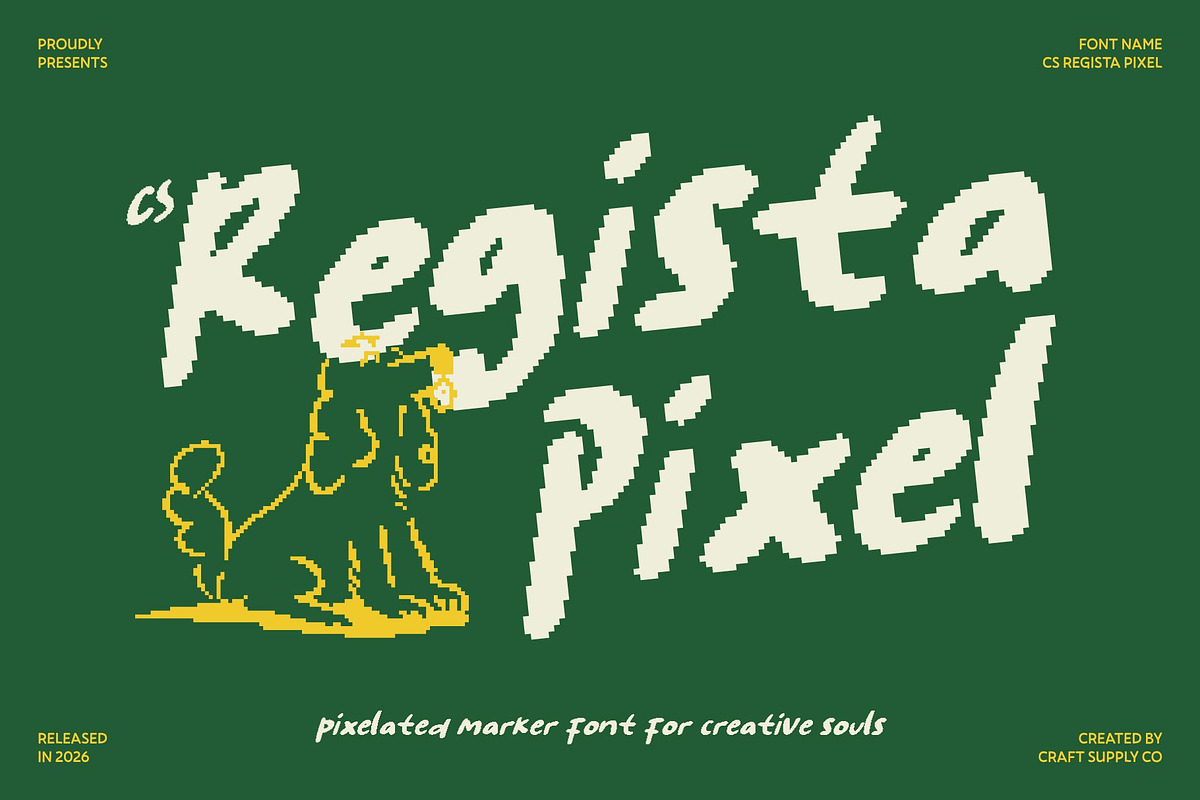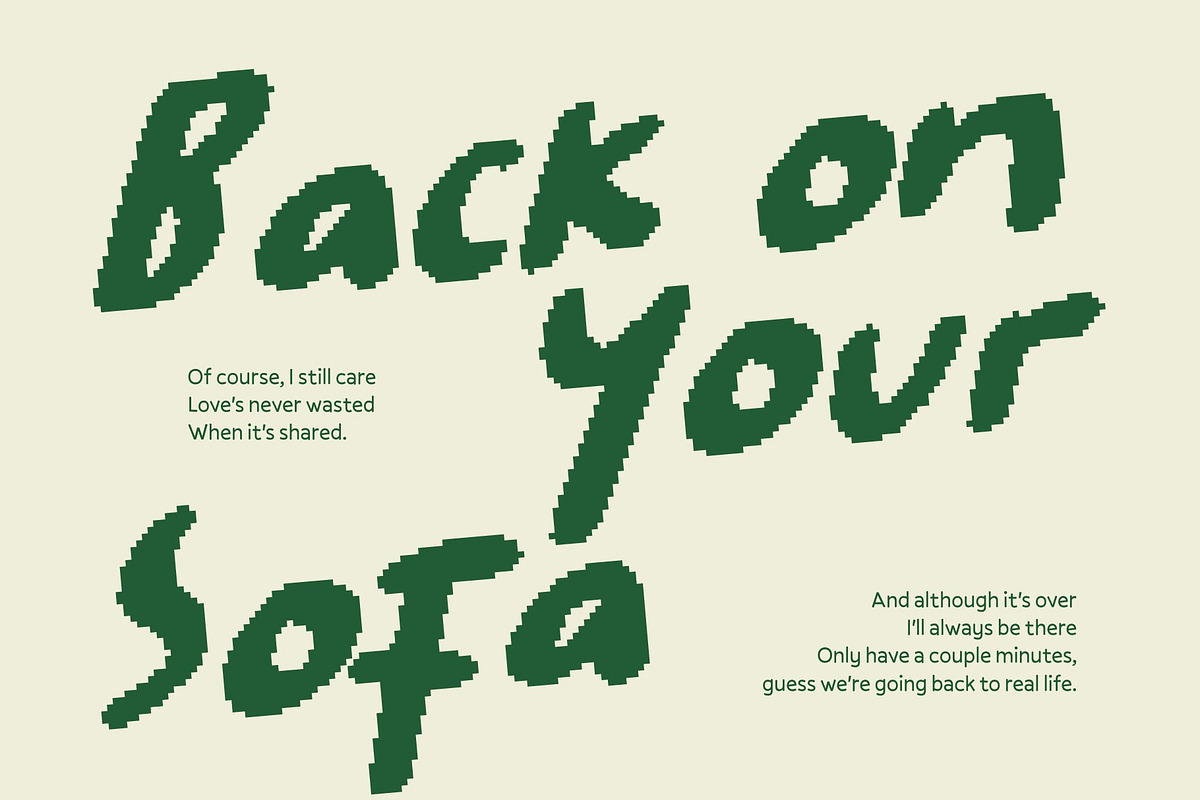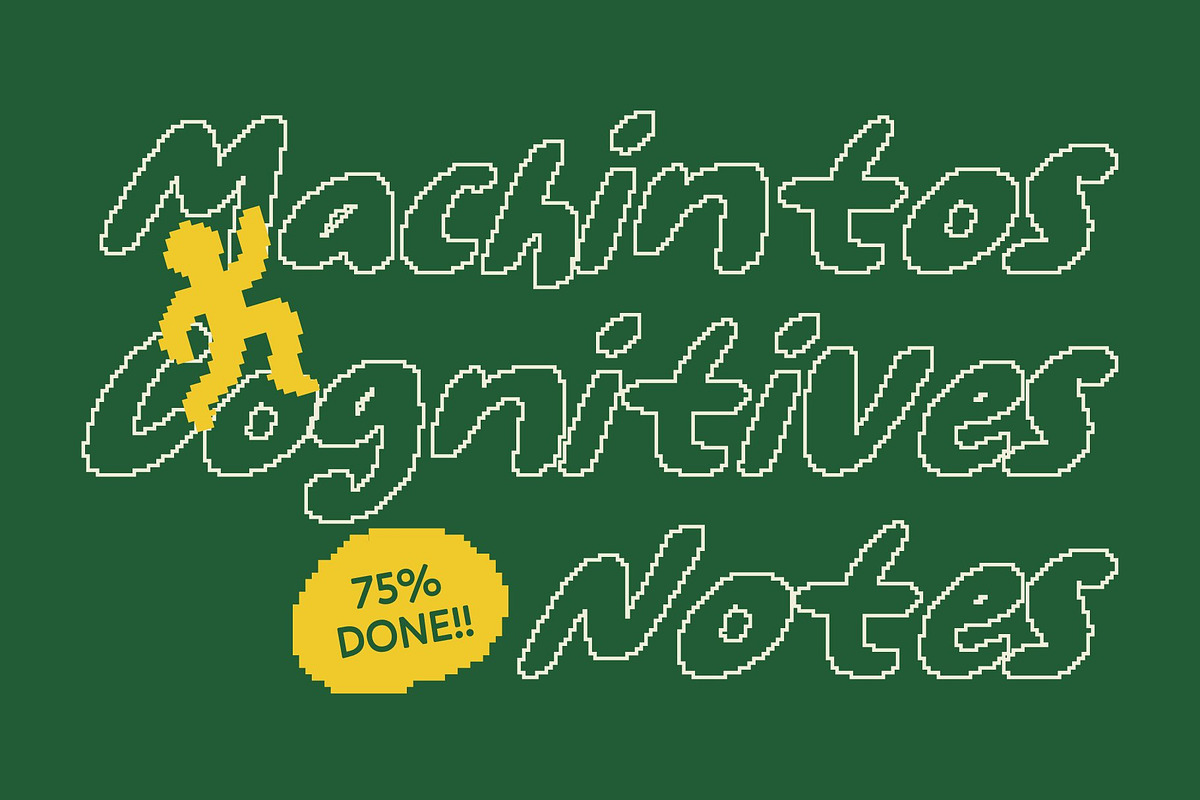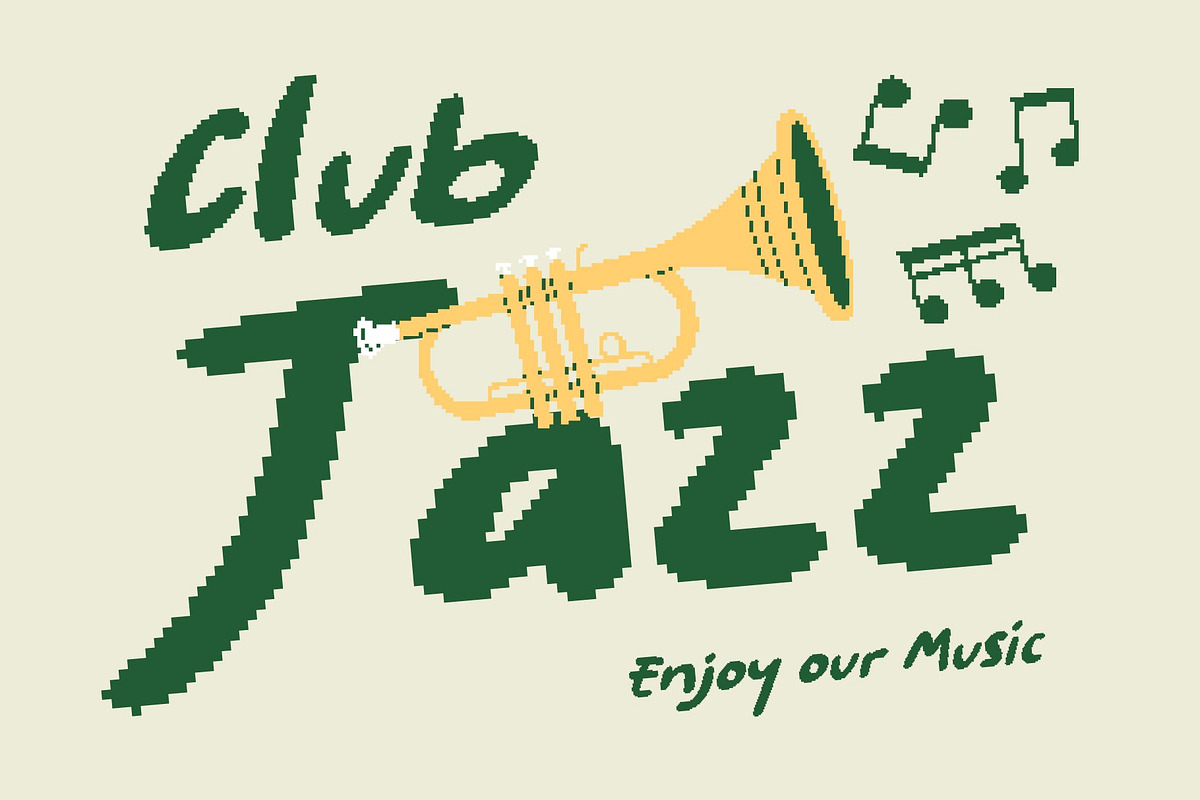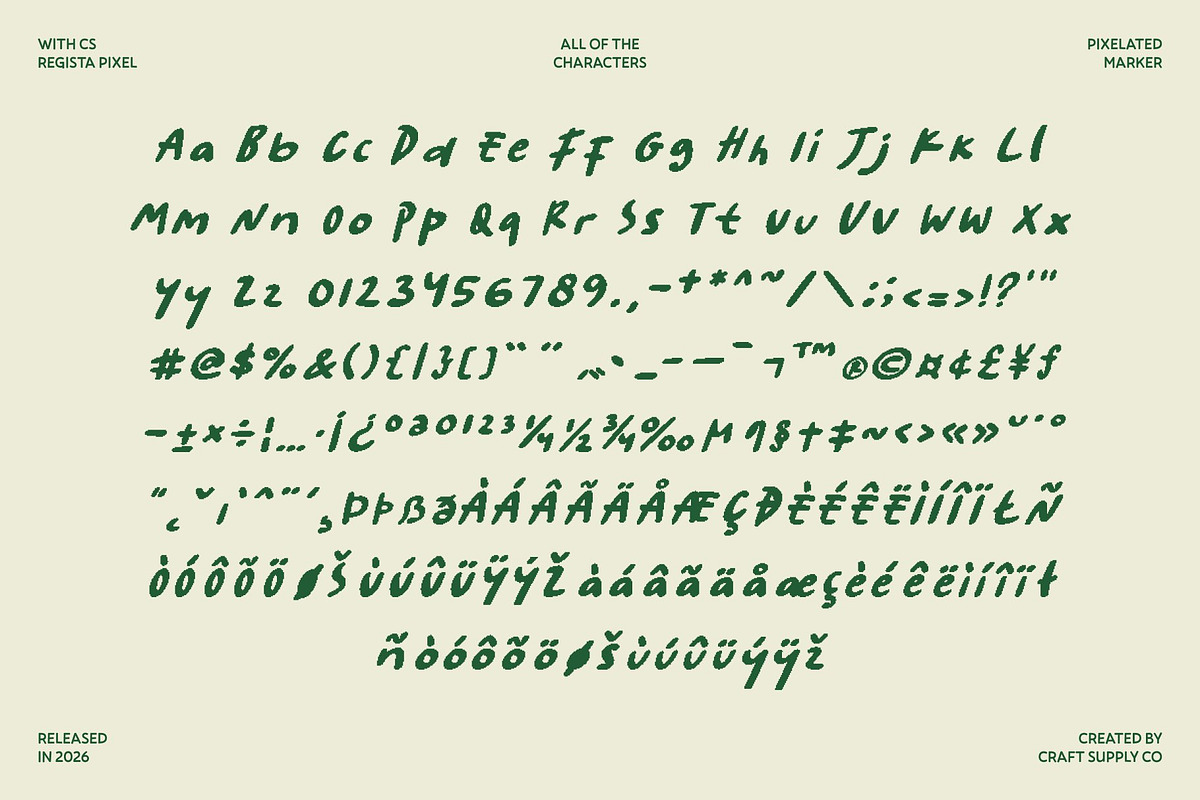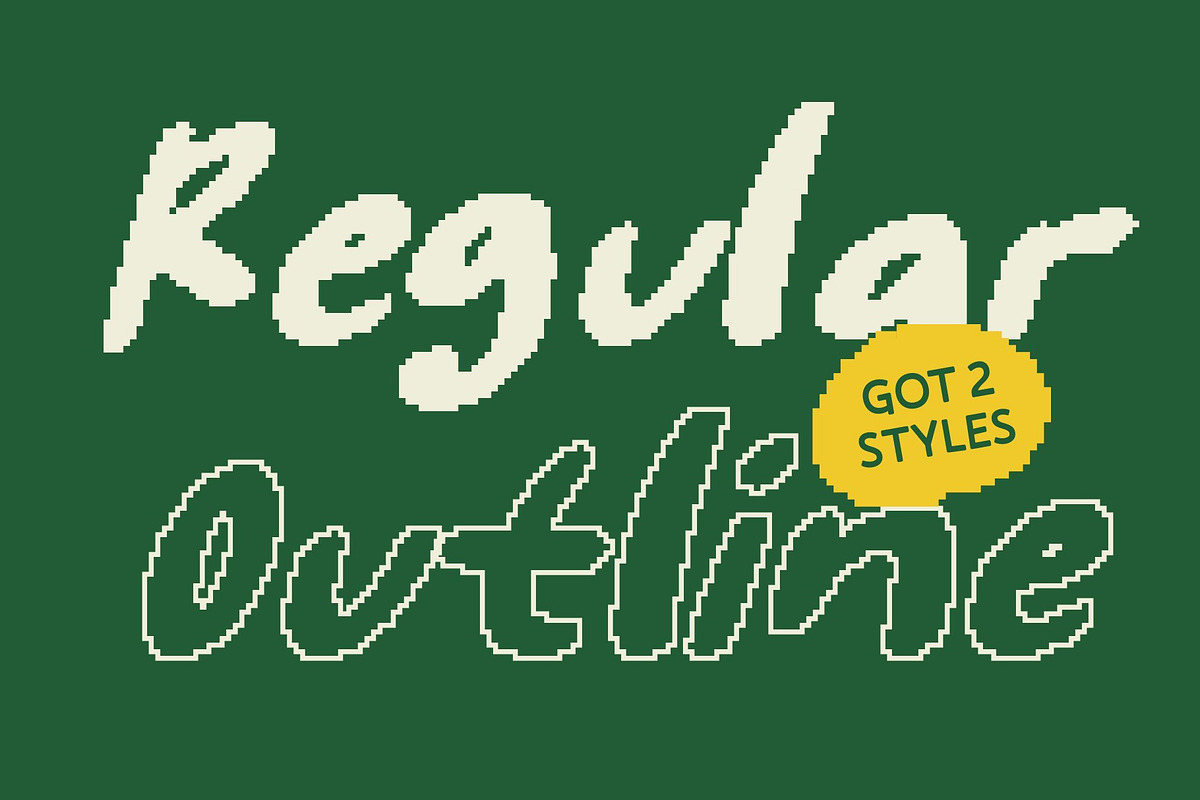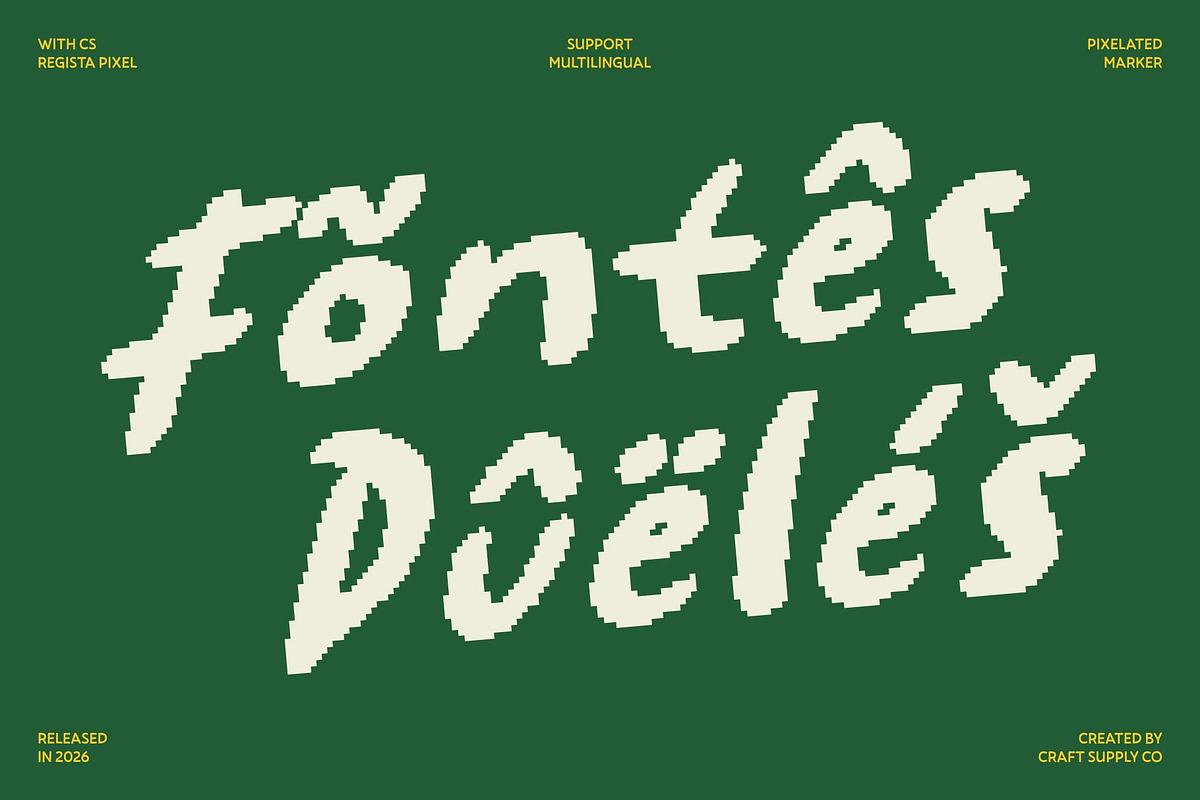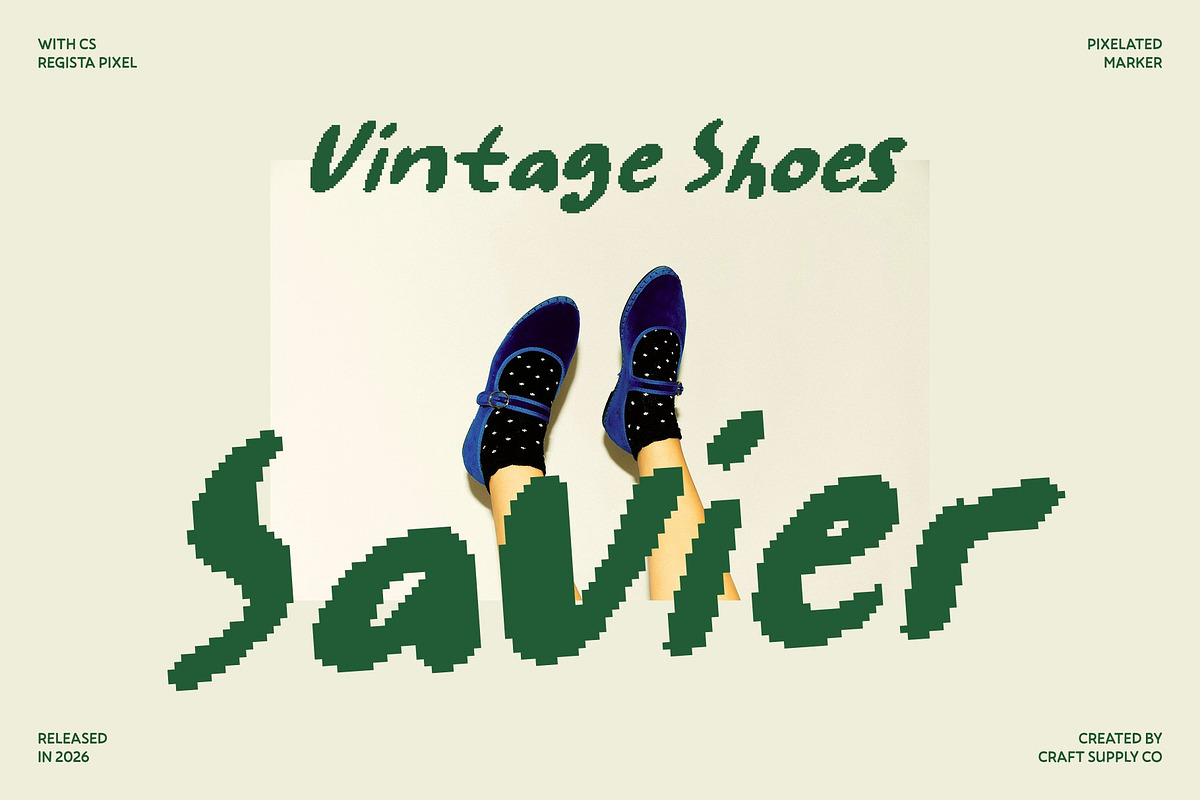
CS Regista Pixel
CS Regista Pixel – Natural Marker Font with Handwritten Charm
Polished Sans Serif with Handwritten Pixel Personality This is a marker-style sans serif font that blends clean structure with the warmth of natural handwriting, reinterpreted through a subtle pixel construction. Each letter carries handmade texture and digital precision, creating an authentic handcrafted feel while remaining polished. The result is typography that feels human, expressive, and perfectly suited for modern digital use.
Expressive Marker Details with Digital Texture Soft curves, organic strokes, and slightly irregular edges give the font its handwritten charm, while the pixel grid adds a distinctive visual rhythm. This combination enhances personality without sacrificing clarity, allowing text to feel lively, friendly, and visually engaging. The handwritten details bring warmth, while the pixel style adds an eye-catching retro-digital character.
Versatile Marker Style for Creative and Tech-Inspired Projects The bold yet flexible marker design makes this font adaptable across a wide range of creative applications. It works beautifully for headlines, logos, editorial layouts, and digital content. Its clear letterforms ensure readability, while the expressive strokes and pixel finish help each word stand out with charm and modern appeal.
Perfect for Editorials, Branding, and Retro-Modern Digital Designs This font excels in editorials, branding, posters, social media graphics, and digital projects. Its unique blend of handwritten warmth and pixel styling makes it especially suitable for creative branding, lifestyle visuals, retro-tech themes, and old-school digital aesthetics.
- CS Regista Pixel Regular
- CS Regista Pixel Outline